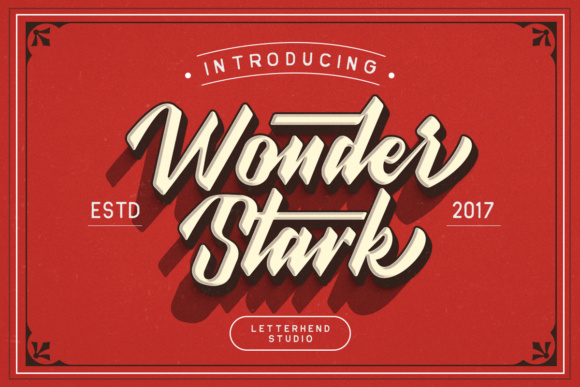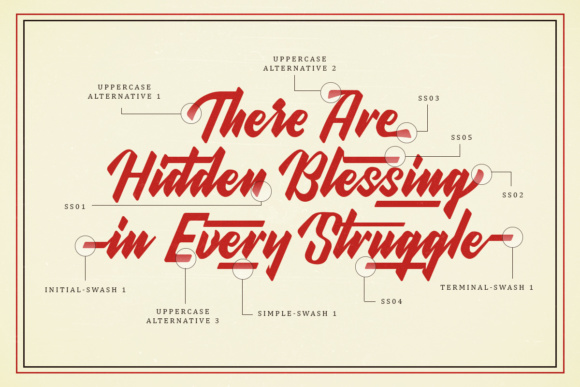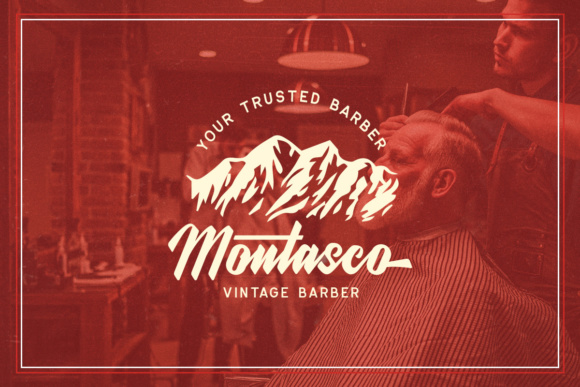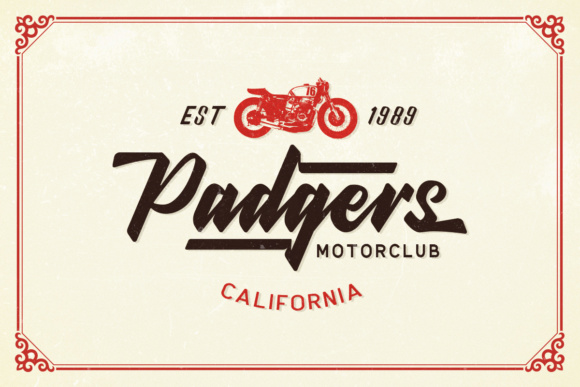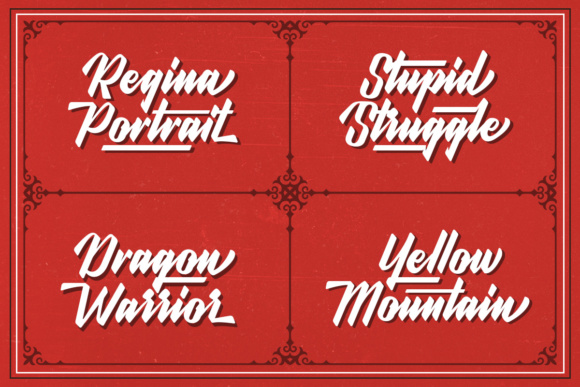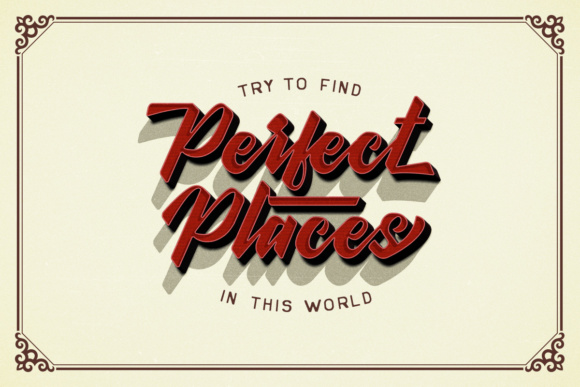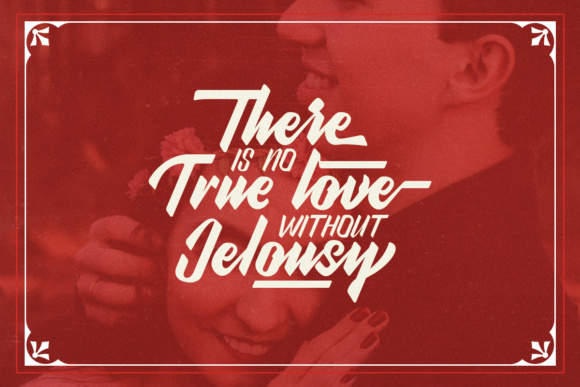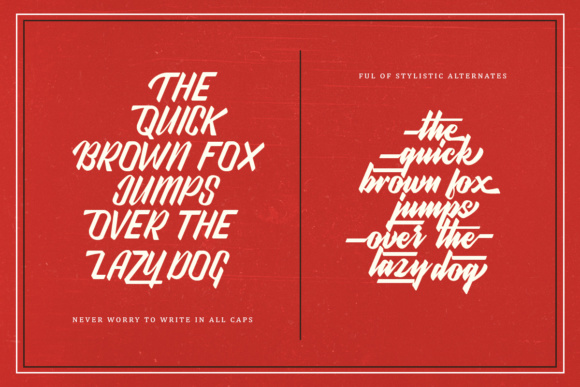
Wonder Stark Font
About Wonder Stark Font
Wonder Stark is a Script typeface which has strong and bold characteristics. This font can be used for multiple purposes such as: posters, headlines, invitations and much more!